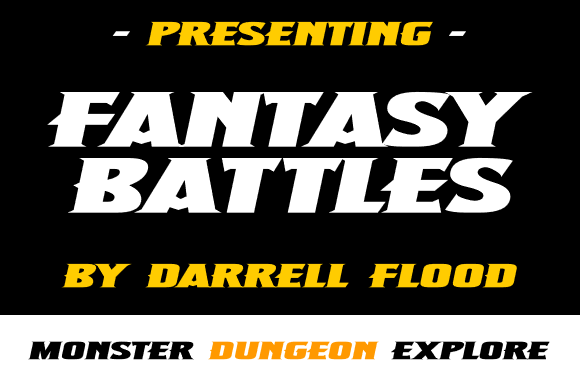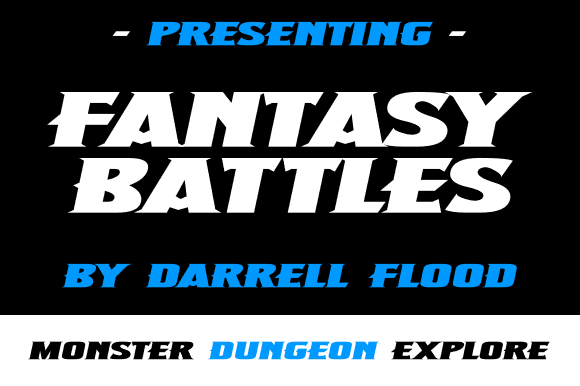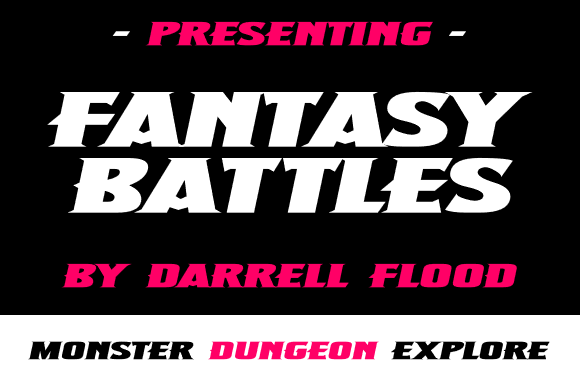
Get Ready to Embark on a Legendary Quest with Fantasy Battles Font
As you sit down to plan your next epic fantasy adventure, do you ever find yourself drawn to the world of medieval castles, mythical creatures, and legendary heroes? You’re not alone. For many designers and writers, the allure of fantasy is a constant source of inspiration. And when it comes to bringing that world to life, the right font can make all the difference.
That’s where Fantasy Battles Font comes in – a sharp, spiked, fantasy style font designed to transport you to a realm of magic and mystery. With its bold, adventurous spirit, this font is perfect for crafting tales of epic quests, dungeon explorations, and journeys into the unknown. And for designers, Fantasy Battles Font is a valuable addition to any toolkit, offering a unique and eye-catching way to add some fantasy flair to your designs.
- Unique Characteristics: Fantasy Battles Font features a unique blend of medieval and fantasy elements, with intricate details and ornaments that evoke a sense of mysticism and wonder.
Fantasy Battles Font Review
Overall, I’m quite impressed with the Fantasy Battles Font. Here’s a breakdown of what I think works well and what might need some tweaking.
- The font has a clear medieval or fantasy vibe, making it perfect for games or stories that require a sense of adventure.
- The bold weight is really well done and adds a great deal of visual impact to headings and titles.
- The font is highly customizable, which is great for designers who like to tweak and adjust their work to fit their specific needs.
- The regular weight of the font can sometimes feel a bit too light, making it harder to read at smaller sizes.
- The font’s character set is limited, which might make it harder to use for projects that require a wide range of languages or characters.
- Some of the ligatures can feel a bit awkward or inconsistent, which might be a turn-off for designers who value precision and attention to detail.
Overall, I think the Fantasy Battles Font is a solid choice for designers who need a font with a unique, fantasy-inspired look. While it’s not perfect, it’s definitely worth considering for the right project.
For the most striking effect, use the Fantasy Battles Font for titles and headings.
Combine the font with bold, colorful graphics to create a dramatic and eye-catching design.
Use the font for fantasy-themed projects, such as game artwork, book covers, or website headers.